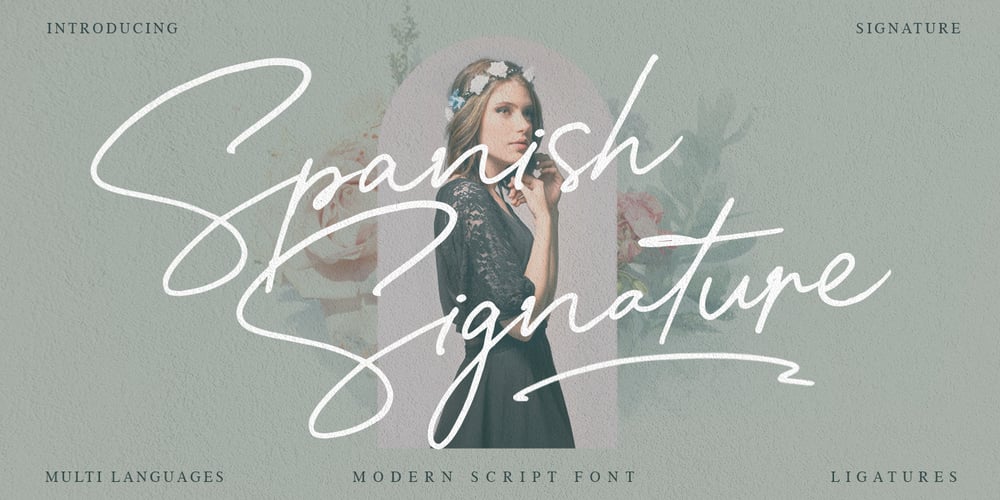
Spanish Signature Font Family was designed by Gitayogi Irhandi and published by Scratch Design. Spanish Signature contains 1 styles and family package options. Introducing Spanish! It’s a modern script font with a signature style look. It’s highly recommended for you who want to make some designs with a natural signature style. Just open your Opentype features while using the script font to use the ligatures and swashes. As you type, your text will look like a natural signature or handwriting. So, enjoy the Spanish modern script and make some cool stuff!